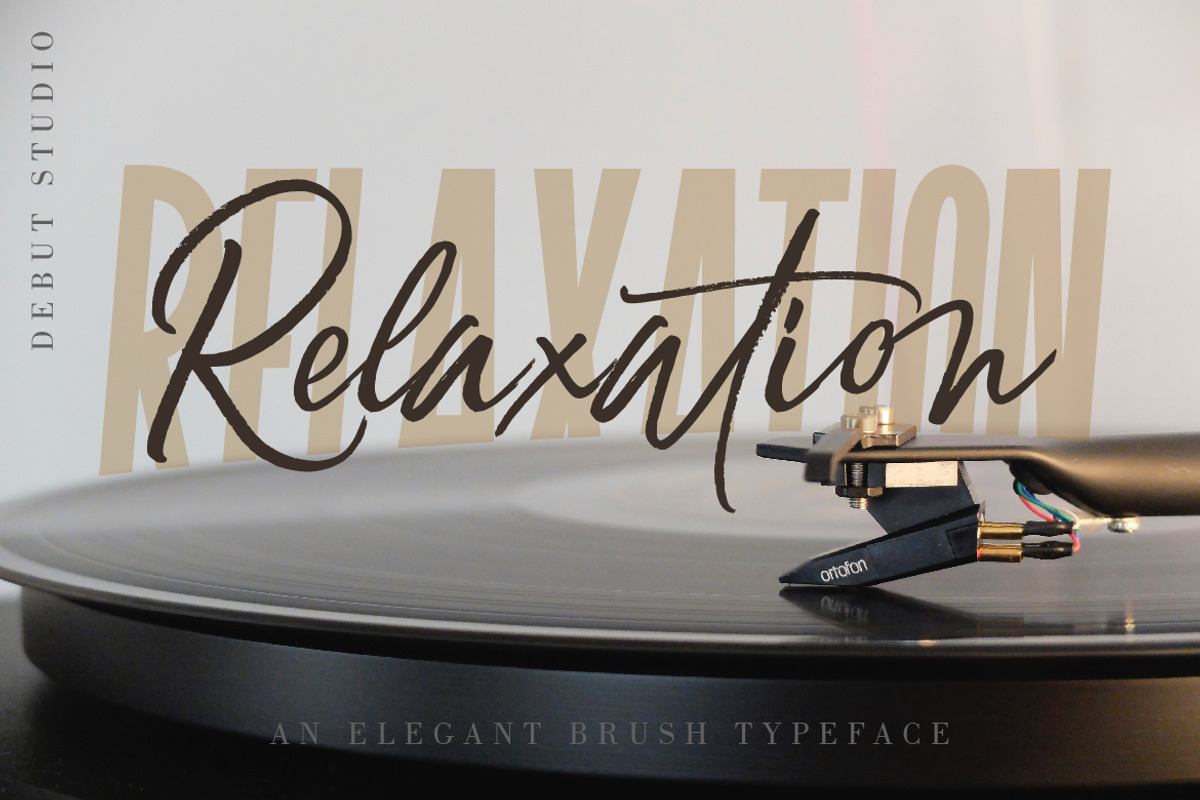
Relaxation Script Font Free Download is a smooth, flowing handwritten script typeface that captures a relaxed, calming vibe. With its elegant, natural curves and fluid letterforms, Relaxation is perfect for wedding invitations, personal branding, greeting cards, lifestyle blogs, and any project that seeks to convey warmth and ease.
Relaxation Script Font Free Download offers a serene and personal touch to your designs, ideal for creating elegant, yet approachable typography. Whether you're designing a tranquil brand, crafting a heartfelt message, or creating beautiful stationery, Relaxation brings a soft, elegant look to every letter. Download it today and add a sense of calm and beauty to your next creative project.